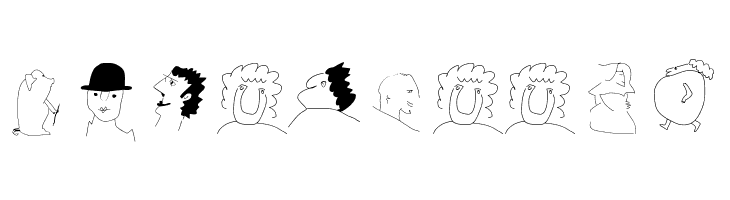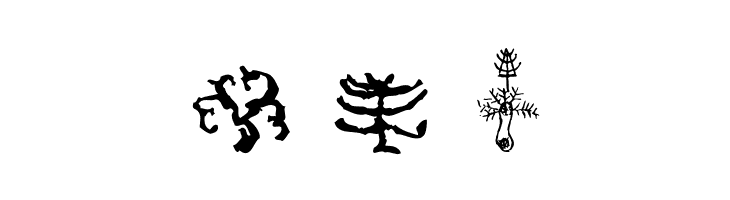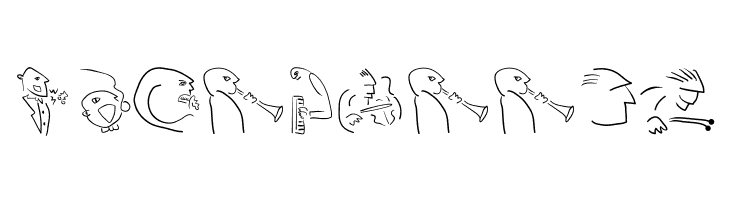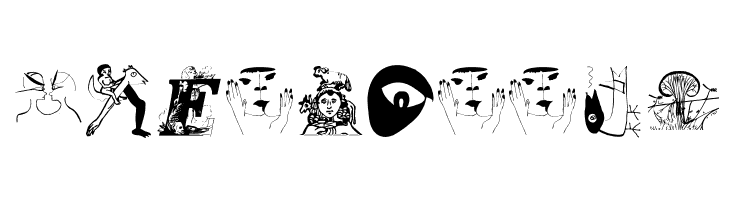
A decorative font with abstract illustrations and bold, stylized numbers.
Hand-drawn, childlike doodle font with playful illustrations.
A whimsical font featuring cartoonish illustrations within each character.
Illustrative font with shopping-themed scenes forming each character.
A whimsical and artistic font with abstract, doodle-like characters.
Cartoonish, myth-themed illustrative font with unique character drawings.
Hand-drawn castle illustrations form each character in this decorative display font.
Ornate, illustrative font with unique character drawings.
A whimsical, hand-drawn sketch font inspired by children's drawings.
Hand-sketched, illustrative display set with unique drawings for each character.
A decorative insect-themed dingbat font with detailed bug illustrations.
A decorative font made up of assorted dog and cat illustrations in various styles.
A playful, illustrated display font made of theatrical character drawings.
An anatomical dingbat font with detailed human body illustrations.
Whimsical, hand-drawn tree illustrations replace traditional letterforms.
A playful, illustrative display font with shield-shaped, cartoon-like glyphs.
Artistic, music-themed illustrative font with abstract line drawings.
A decorative and abstract font inspired by ancient art and tribal motifs.
A playful, illustrative display font made up of character drawings.
A whimsical, abstract font inspired by primitive art with playful, dynamic characters.
Ornate dingbat font with carnival and masquerade illustrations.
Cartoonish, illustrative font made of quirky character drawings.
A whimsical, illustrative font with unique drawings for each character.
A sketch-style dingbat font featuring diverse hand-drawn illustrations.
An artistic and decorative font with intricate illustrations within each character.
An illustrative, cartoon-based decorative font with unique character scenes.
Cartoonish, technology-themed illustrative font with unique character drawings.
Cartoon illustration-based decorative font with unique character drawings.
A playful, abstract, and illustrative decorative font with quirky, hand-drawn characters.
Bird-themed dingbat font with diverse bird illustrations.
A playful, abstract collection of symbols blending facial elements with geometric designs.
Hand-drawn sketch illustrations replace standard characters in a playful, artistic style.
An illustrative, cartoon-style decorative font with unique artwork for each character.
A decorative font with whimsical bird illustrations replacing standard characters.